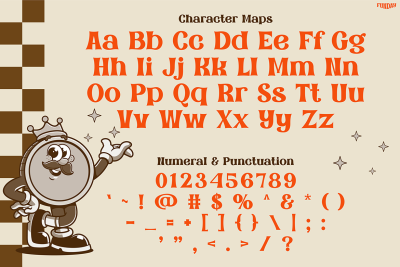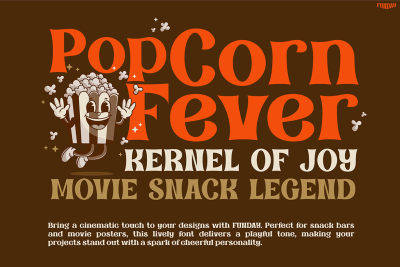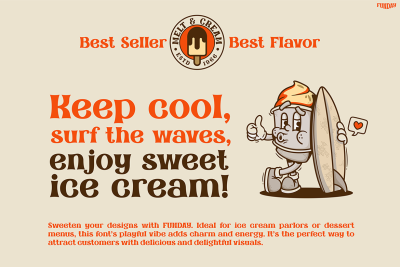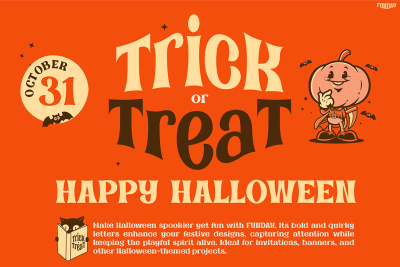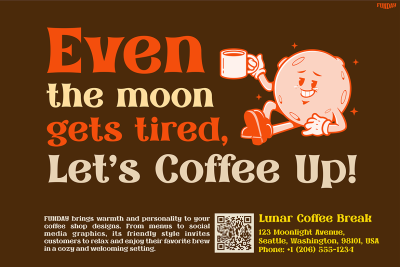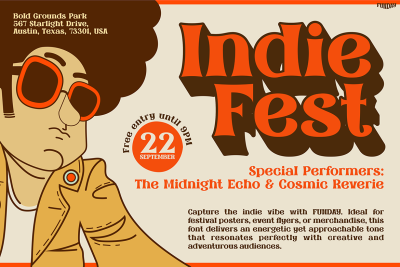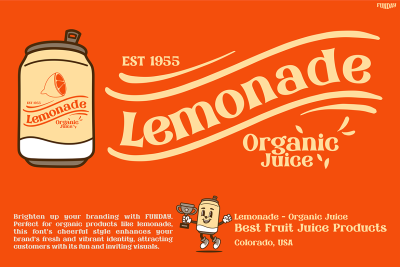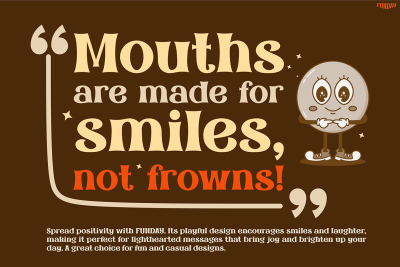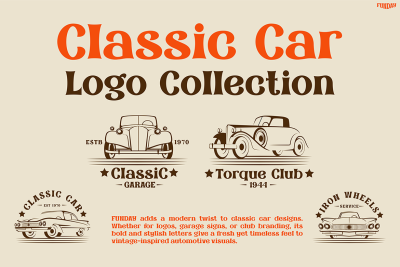
Retro Font FUNDAY is a cheerful and dynamic typeface that draws inspiration from the playful aesthetics of mid-20th-century design. With bold, curvy letterforms and a lively retro personality, FUNDAY evokes joy and nostalgia. The font stands out with its strong decorative serifs and smooth curves, making it perfect for designs that feel both vintage and vibrant.
The designers crafted FUNDAYโs character set to ensure maximum legibility while preserving its quirky and fun appeal. Its bold weight and clean structure suit headlines, logos, or branding that demand attention. Warm, rounded edges and balanced proportions give it a friendly vibe, while subtle decorative details add a touch of retro charm. Whether paired with modern graphics or used to recreate a classic 70s look, FUNDAY turns any project into a visual delight.
FUNDAY adapts effortlessly to a variety of creative uses. Its whimsical nature enhances bright color palettes and playful illustrations. This versatility allows it to breathe life into designs while guaranteeing readability and visual impact in both print and digital formats.
Retro Font FUNDAY Who Is It For?
Retro Font FUNDAY is the perfect choice for designers, creatives, and brands that want cheerful and eye-catching visuals. Graphic designers can create standout branding, advertising campaigns, or packaging designs using this fontโs lively energy. Marketing teams will find it ideal for promotional materials targeting family-friendly or nostalgia-driven audiences.
Content creators and influencers, especially those focusing on lifestyle, food, or entertainment, can incorporate FUNDAY into social media posts, thumbnails, or merchandise designs. This font shines in childrenโs products, party invitations, and themed events that require a playful yet professional tone.
Event organizers hosting retro-inspired gatherings or kid-focused events can rely on FUNDAY to set the mood. Food brands, such as bakeries, cafes, or confectioneries, can use this typeface to convey warmth and joy. Craft enthusiasts and hobbyists will also enjoy working with FUNDAY for DIY projects, personalized gifts, and home decor.
Anyone looking to infuse their work with fun and retro charm will find Retro Font FUNDAY a perfect companion. Its unique combination of energy, adaptability, and timeless appeal makes it a standout choice for a wide range of projects.